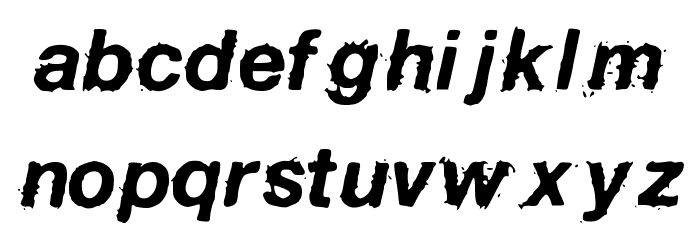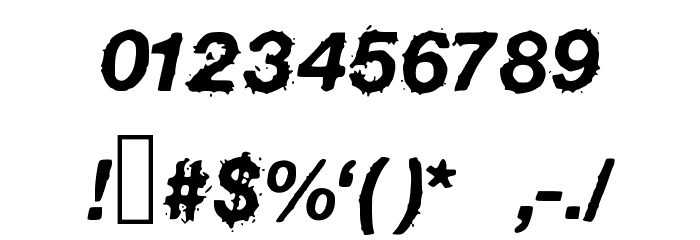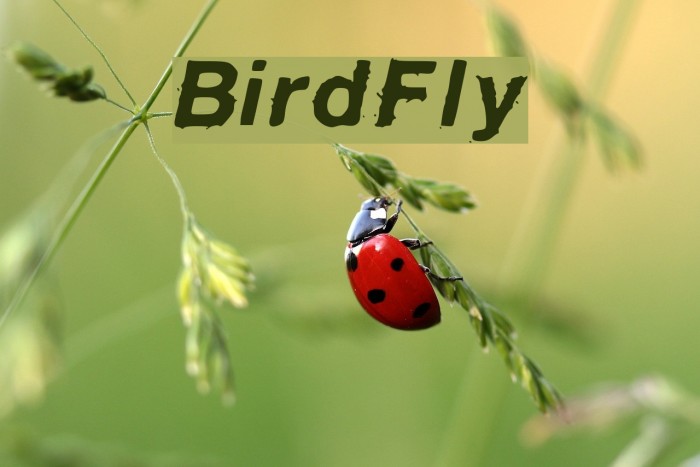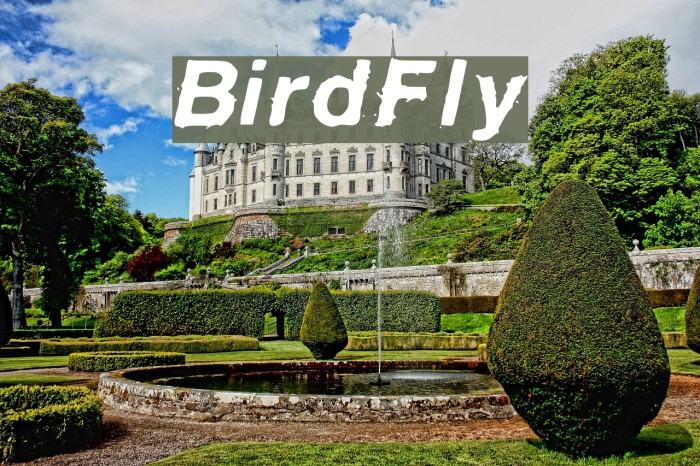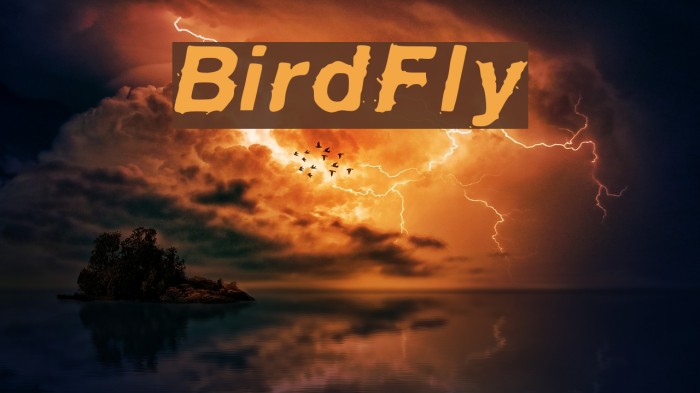
BirdFly Font
This font features a bold and distressed style, characterized by rough, uneven edges that give it a grunge or worn appearance. The letters are slanted, adding a dynamic and energetic feel. The uppercase and lowercase characters maintain a consistent design, with the same distressed texture applied throughout. Numbers and special characters follow the same stylistic approach, ensuring a cohesive look across all glyphs. This font's unique texture makes it stand out, ideal for projects that require a bold statement or an edgy, urban vibe.
A bold, distressed font with a grunge texture and slanted style.
- Font: BirdFly
- Proposed Projects: Ideal for album covers, posters, urban-themed designs, and branding that requires a bold, edgy look.
- Overall Style: Grunge, Urban, Edgy